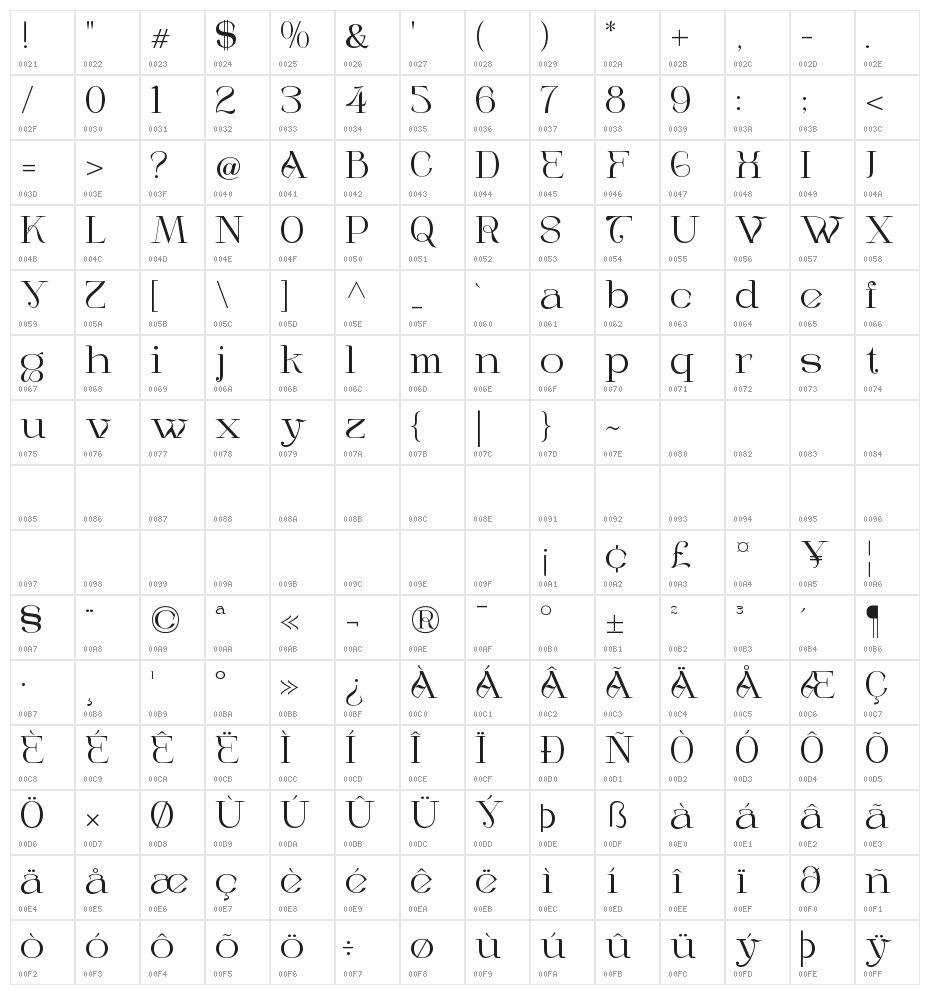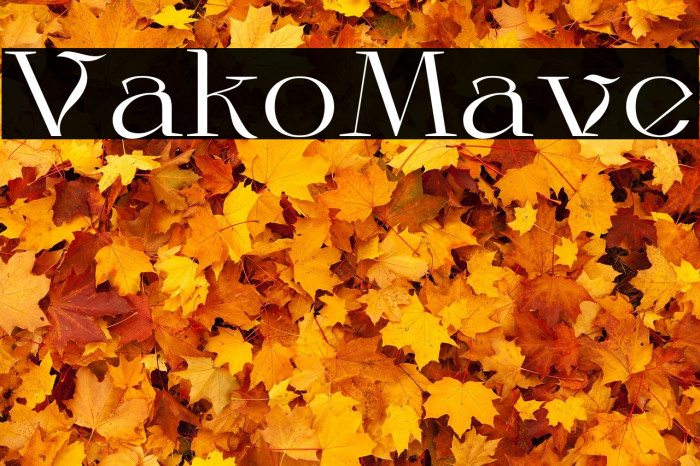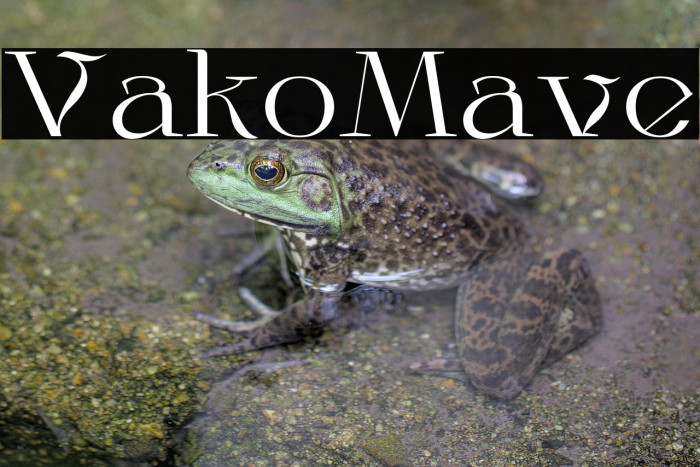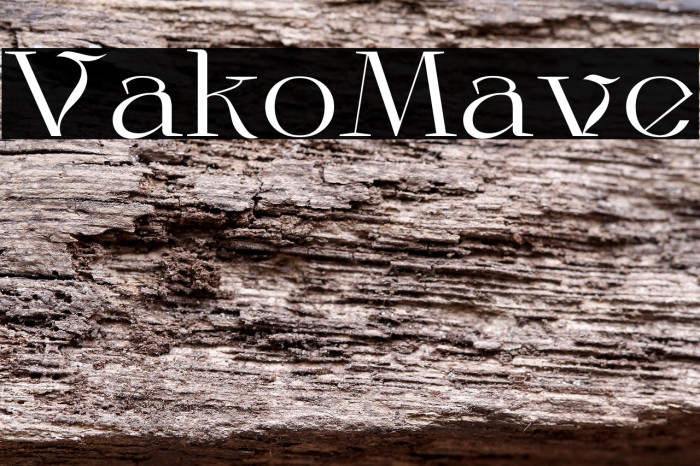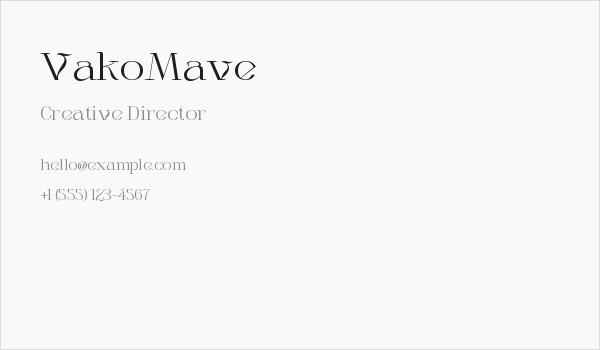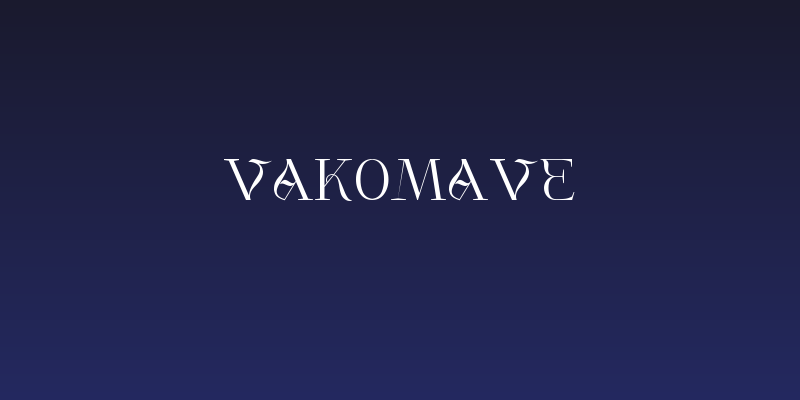
VakoMave Font
VakoMave Description
This font features a unique blend of modern and classic elements, characterized by its elegant and artistic letterforms. The uppercase letters exhibit a striking contrast between thick and thin strokes, with some characters incorporating decorative swashes and flourishes. The lowercase letters maintain a more consistent stroke width, offering a harmonious balance with the uppercase. The numerals are bold and distinctive, ensuring clear readability. Special characters are creatively designed, adding a touch of sophistication. Overall, this font exudes a sense of refined elegance, making it suitable for a variety of design applications.